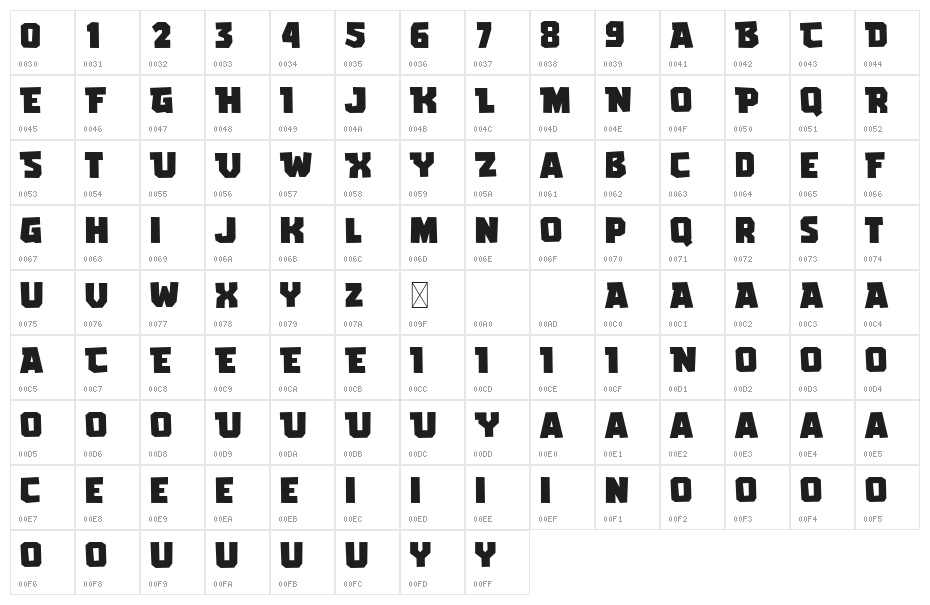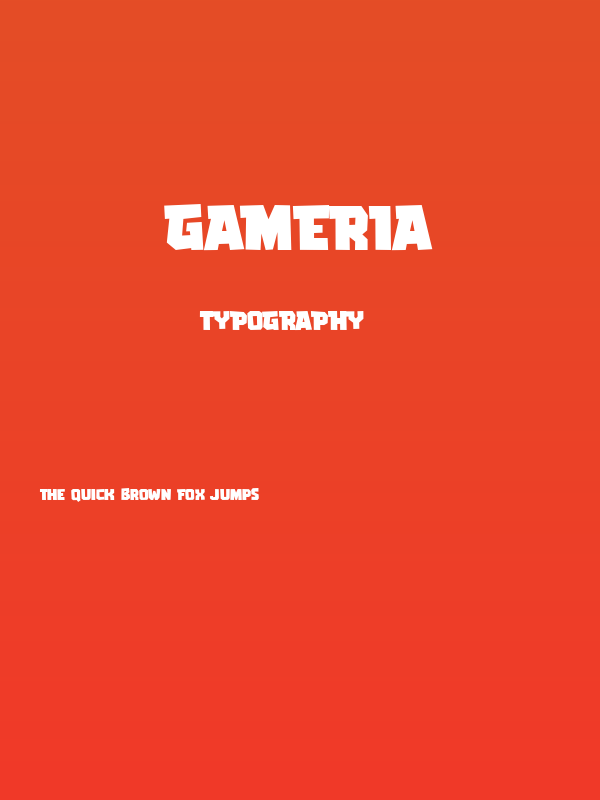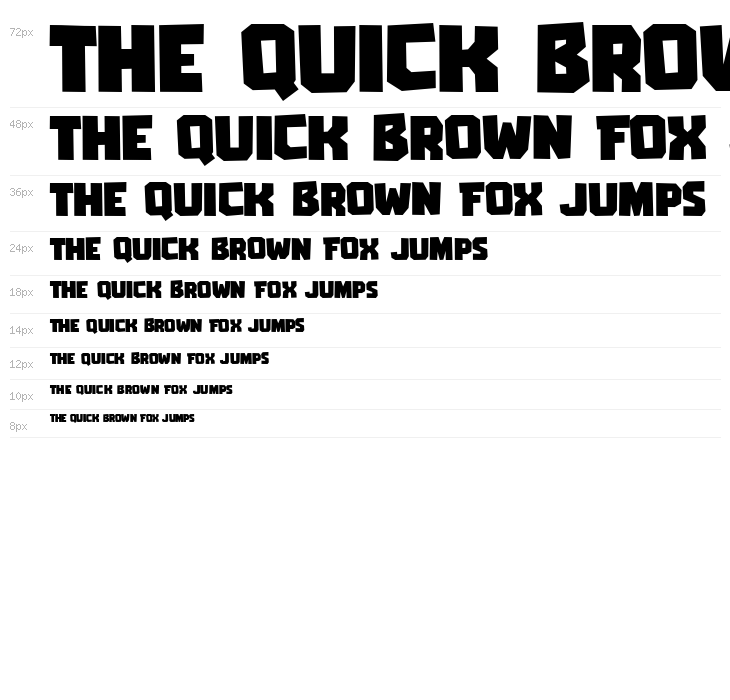
GAMERIA Font
GAMERIA Description
This font features a bold and dynamic style with a strong presence, characterized by its thick, blocky letterforms and angular edges. The uppercase letters are particularly striking, with a geometric design that conveys a sense of power and modernity. The numbers and special characters maintain this bold aesthetic, ensuring consistency across all glyphs. The font's overall appearance is reminiscent of video game or sports branding, making it ideal for projects that require a strong, impactful visual identity. Its unique style is both eye-catching and memorable, suitable for a variety of creative applications.
Proposed ProjectsIdeal for video game titles, sports branding, posters, and logos.